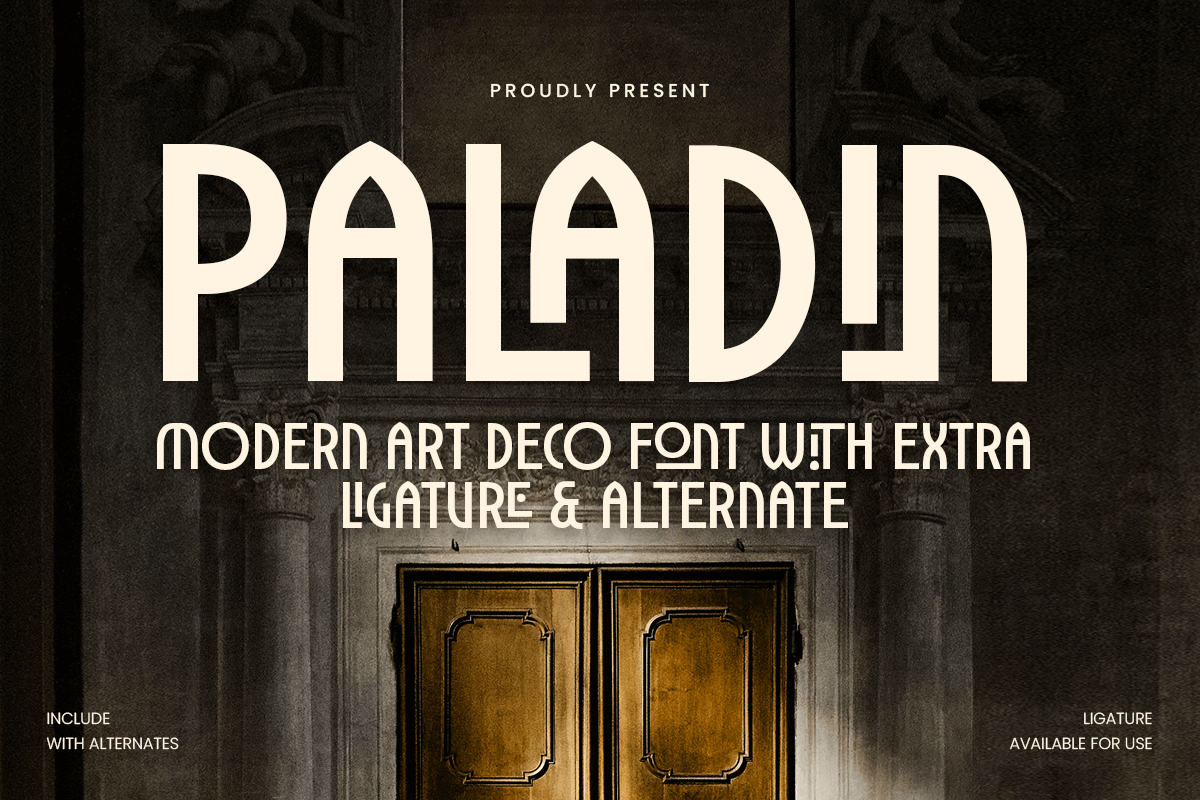
Paladin
-Modern Art Deco Font - Paladin
PALADIN is a modern art deco font that reimagines the elegance of the 1920s with a clean, contemporary twist. Blending geometric precision with refined details, this typeface is ideal for luxury branding, editorials, product packaging, and high-end visual identities.
Inspired by Art Deco architecture and vintage typography, PALADIN combines timeless sophistication with modern versatility. Its sharp edges, graceful curves, and bold contrast create an elevated aesthetic perfect for fashion, lifestyle, jewelry, or beauty brands.
Whether used for logos, magazine titles, invitations, or signage, PALADIN delivers a statement of elegance and confidence. Designed for both digital and print media, it adds a distinct touch of refinement that stands out in professional design compositions.
PALADIN – Modern Art Deco Font Features
Elegant Art Deco design with a modern geometric approach
Perfect for luxury branding, packaging, and editorial design
Ideal for logos, invitations, fashion, and creative projects
Combines classic inspiration with clean, contemporary style
OpenType features for advanced typographic creativity
Channel timeless elegance and modern geometry with PALADIN – the ultimate art deco font for luxury branding, editorial layouts, and refined creative design. ✨